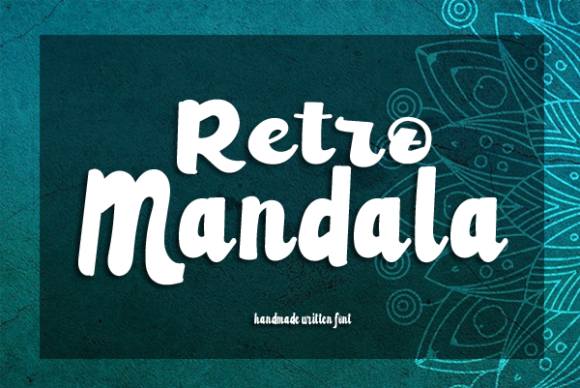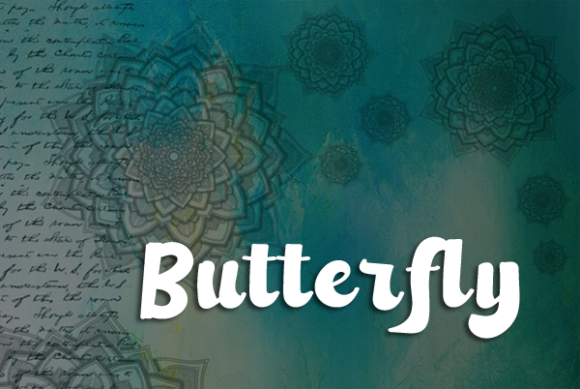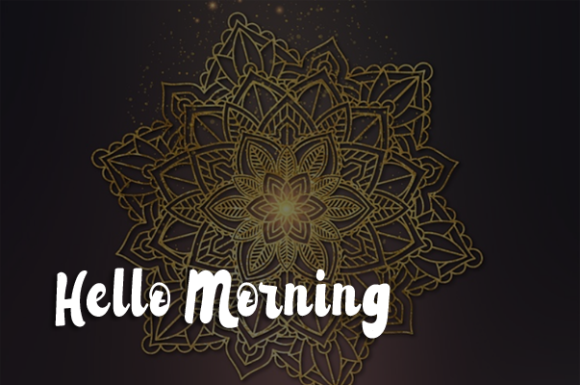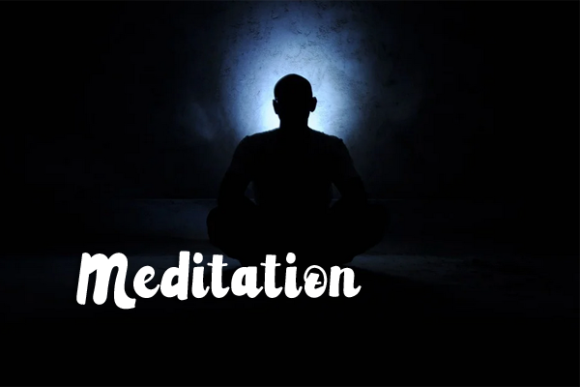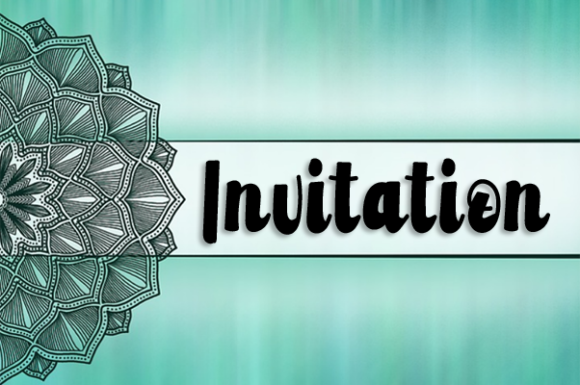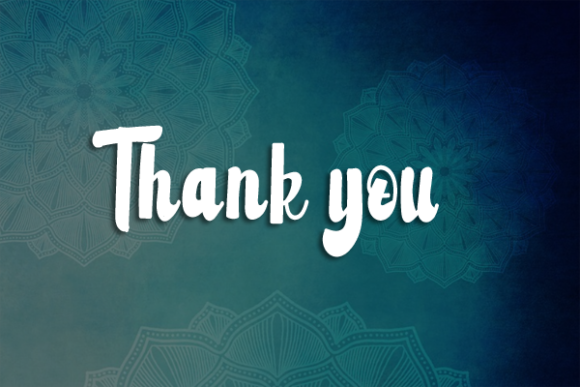
Retro Mandala Font
About Retro Mandala Font
Retro Mandala is a dainty and flowing handwritten font. Sweet and joyful, this font will be ideal for writing wedding invitations, cards or any other design that may need a romantic, personalized touch!